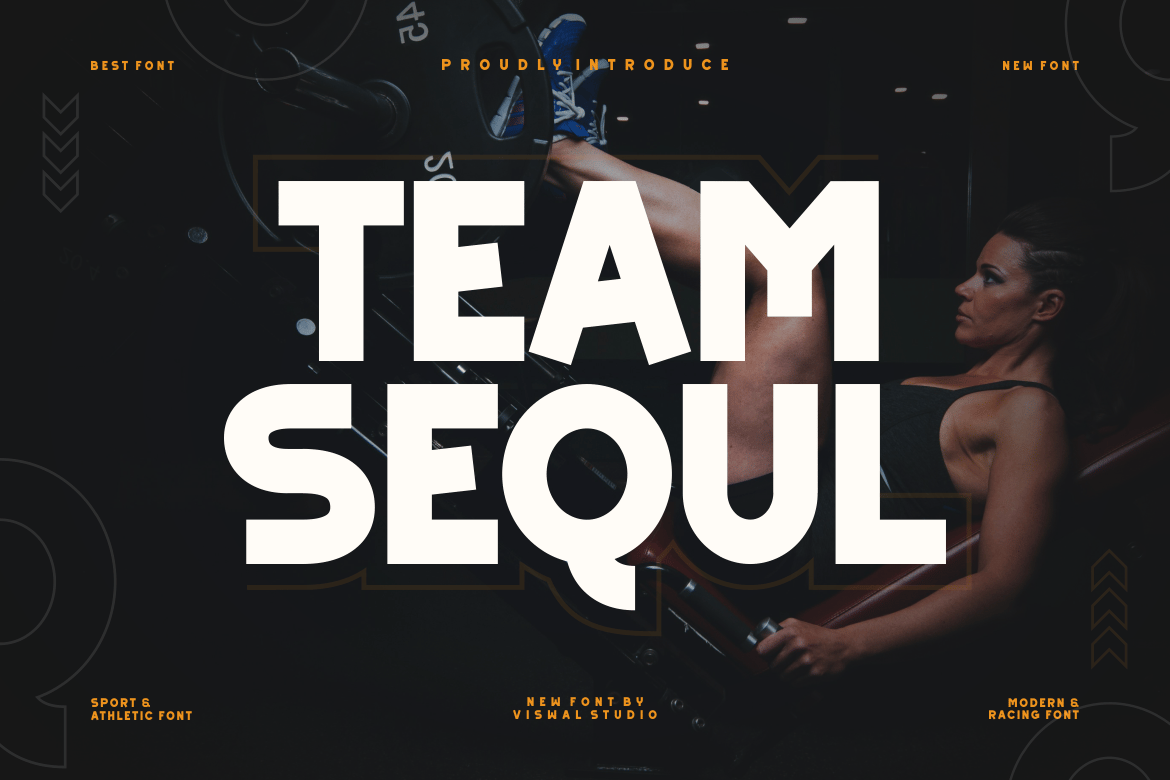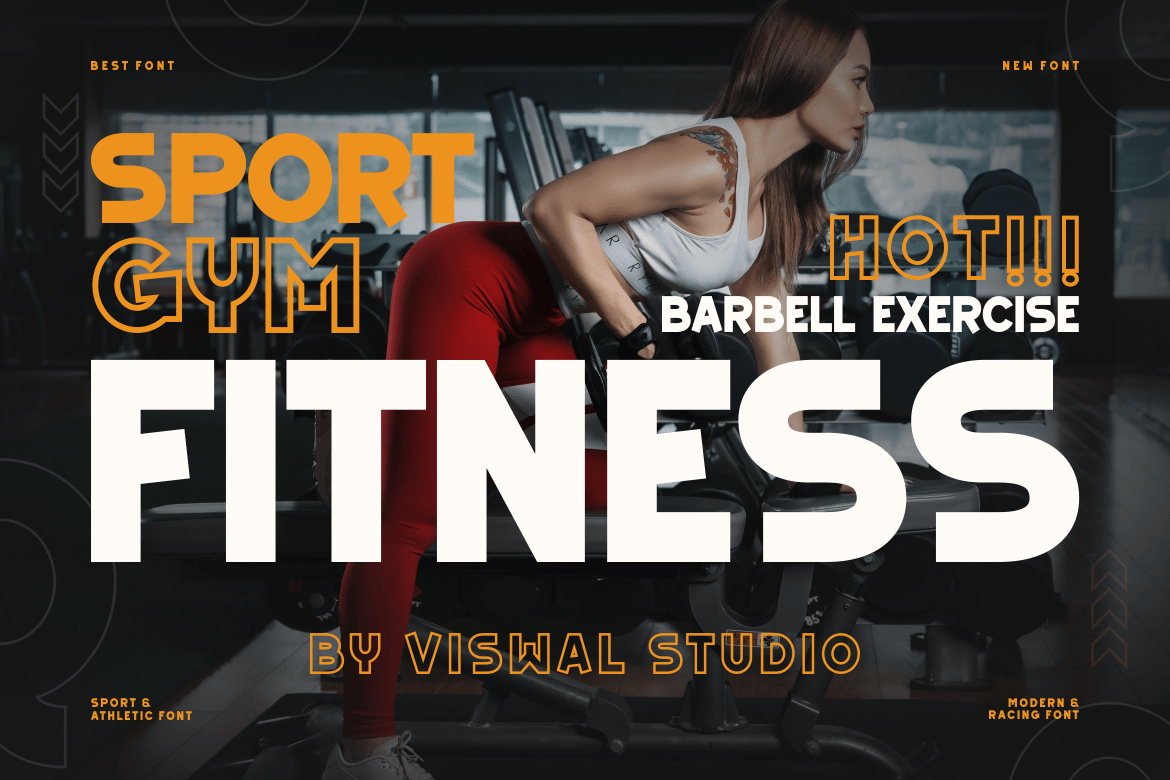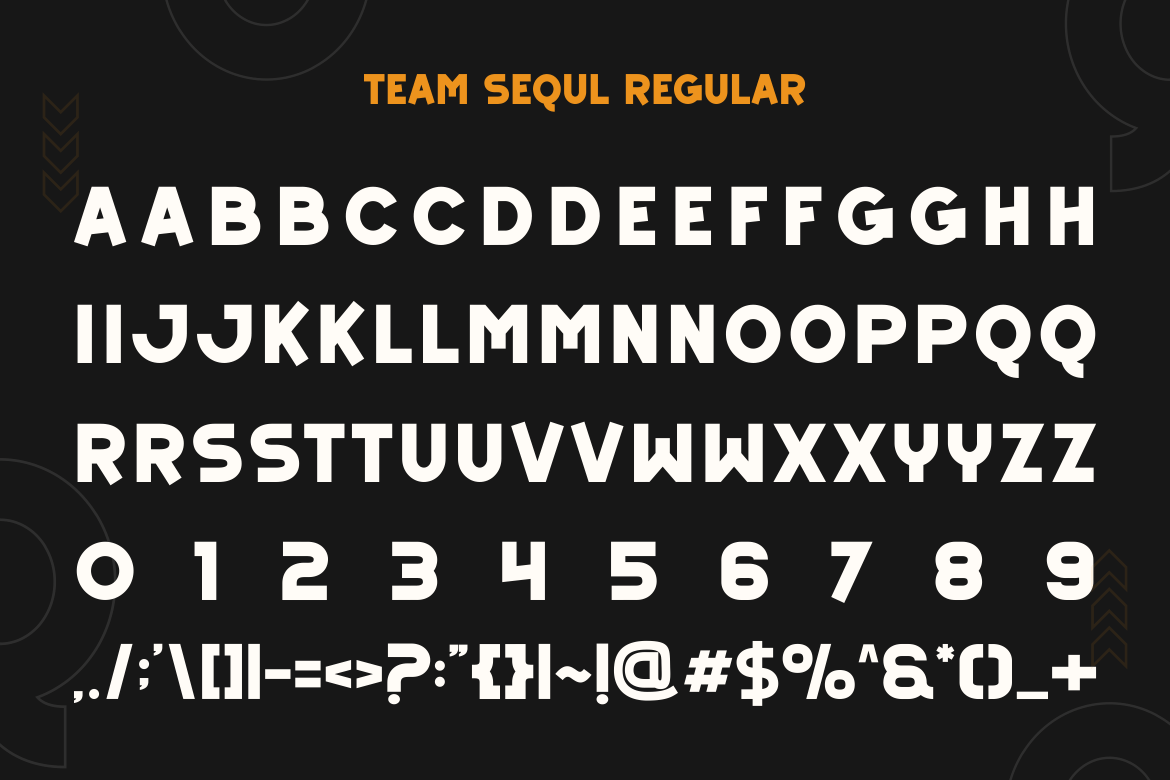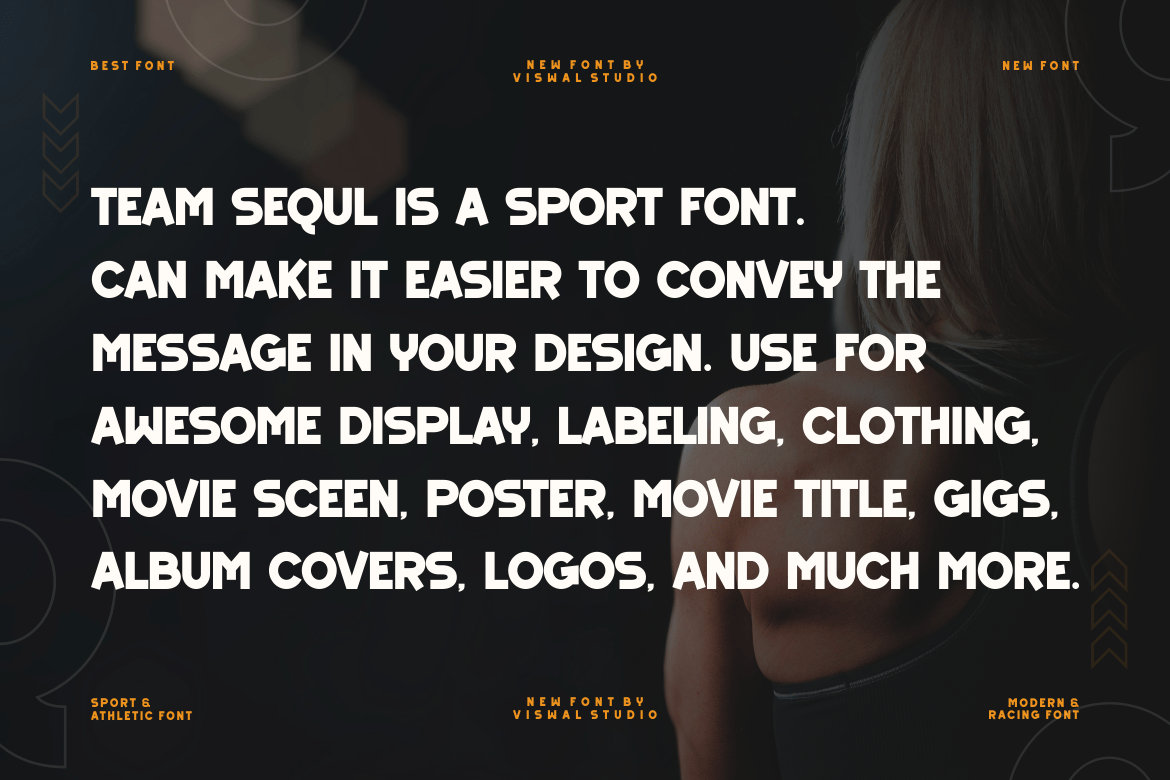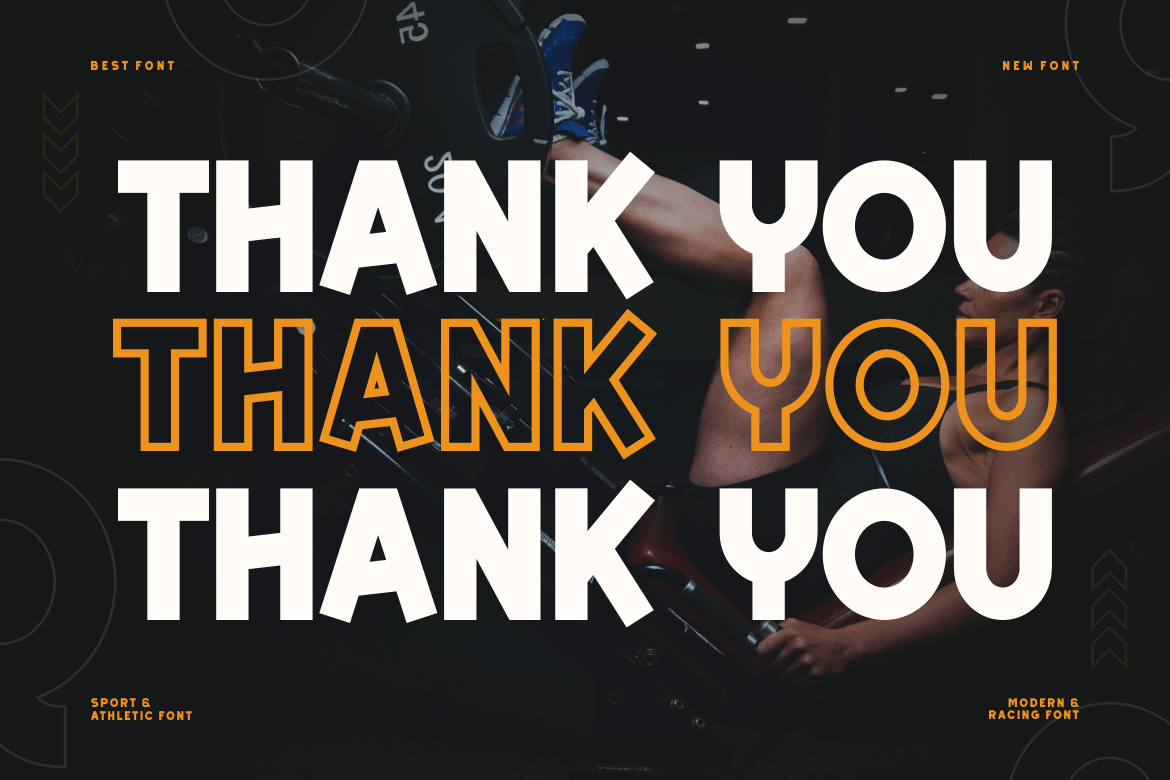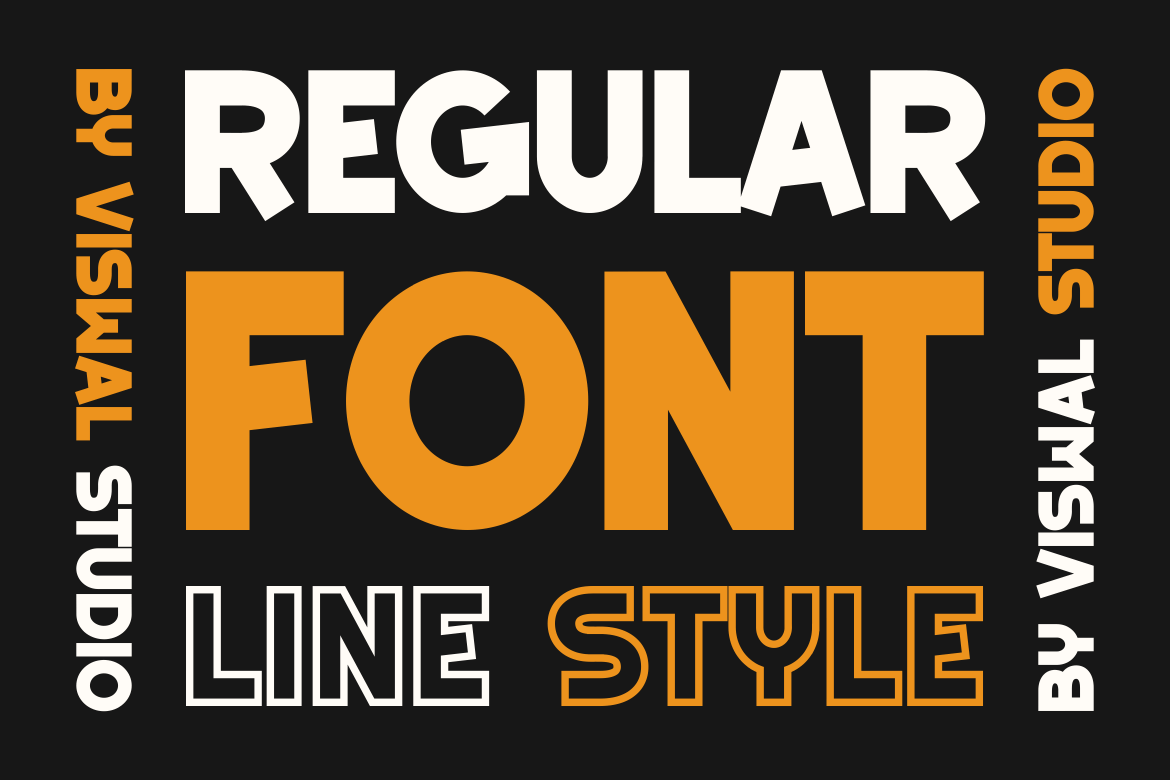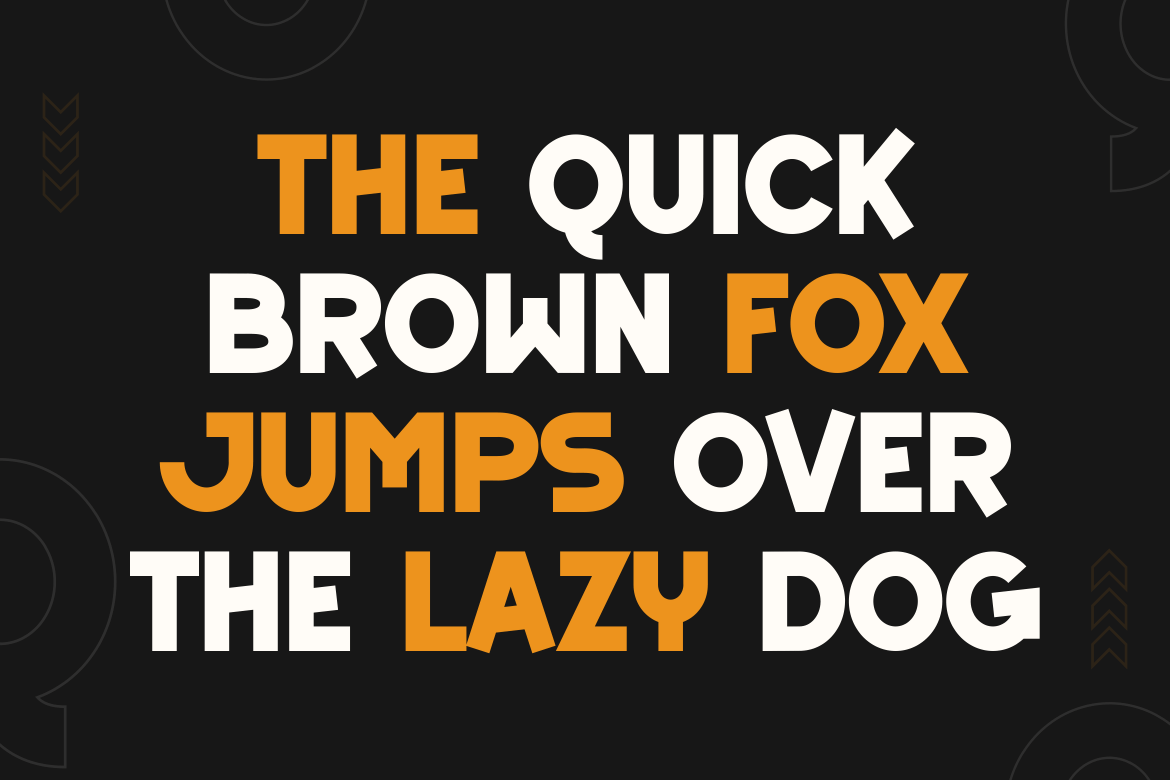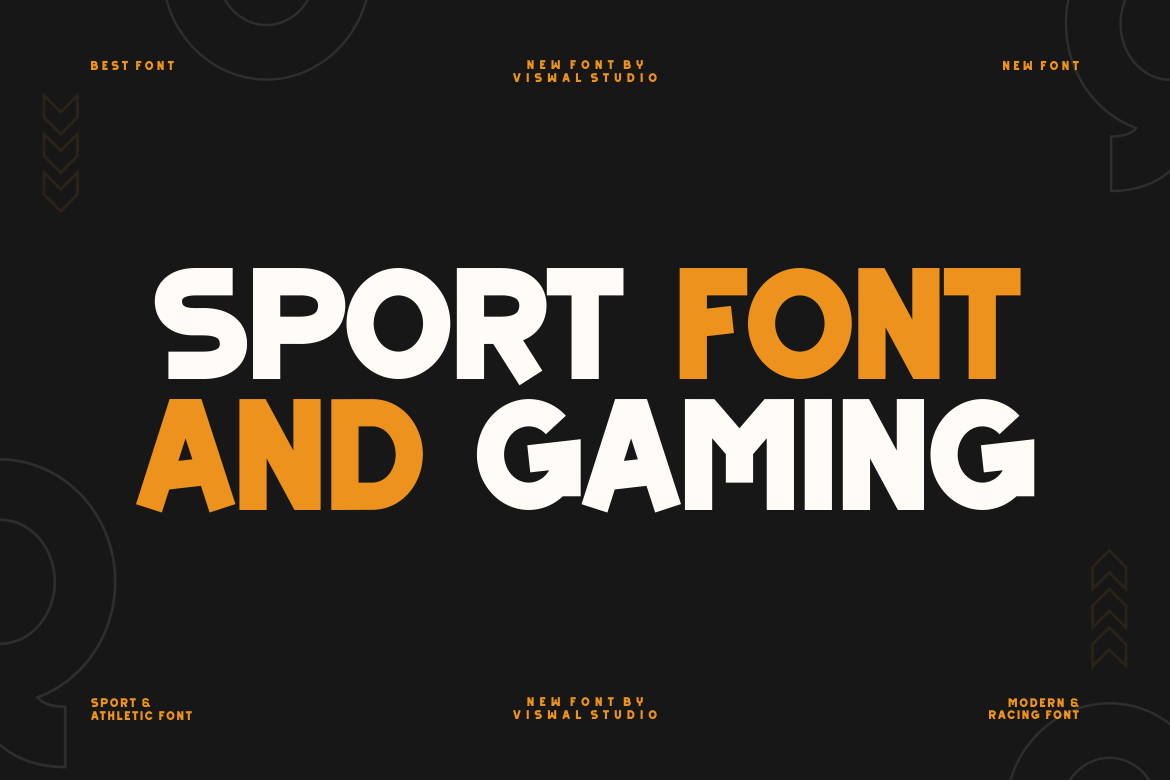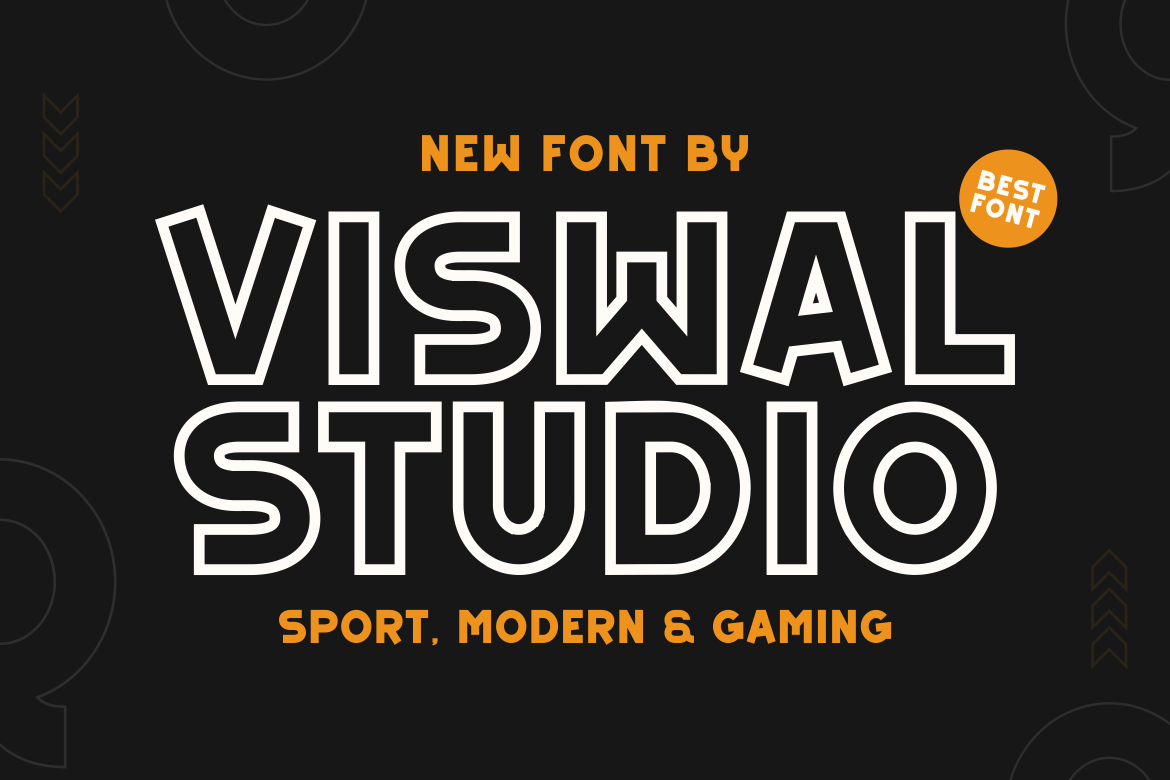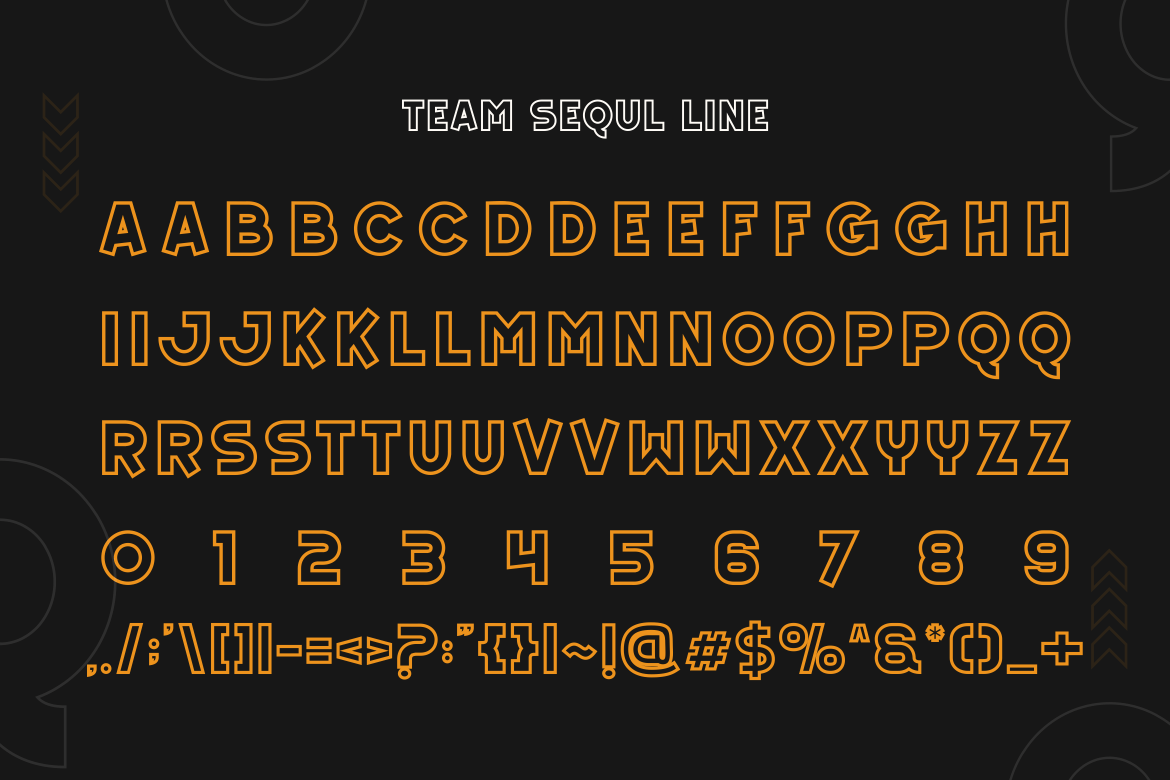
Team Sequl – Sport & Athletic Font
Presenting Team Sequl – Font is suitable for badge, labels, logo, branding, magazine, poster and etc. Our fonts have Uppercase & Lowercase, Numeral & Punctuation, Multilingual support and Opentype Features. For Amazing designs you can mix with other fonts as a complement.